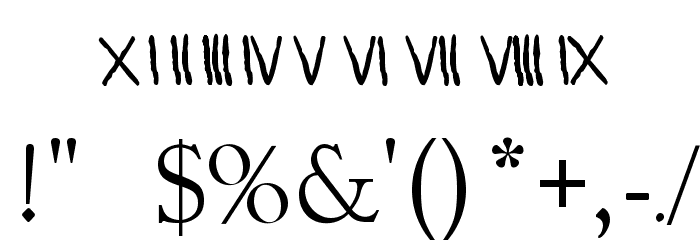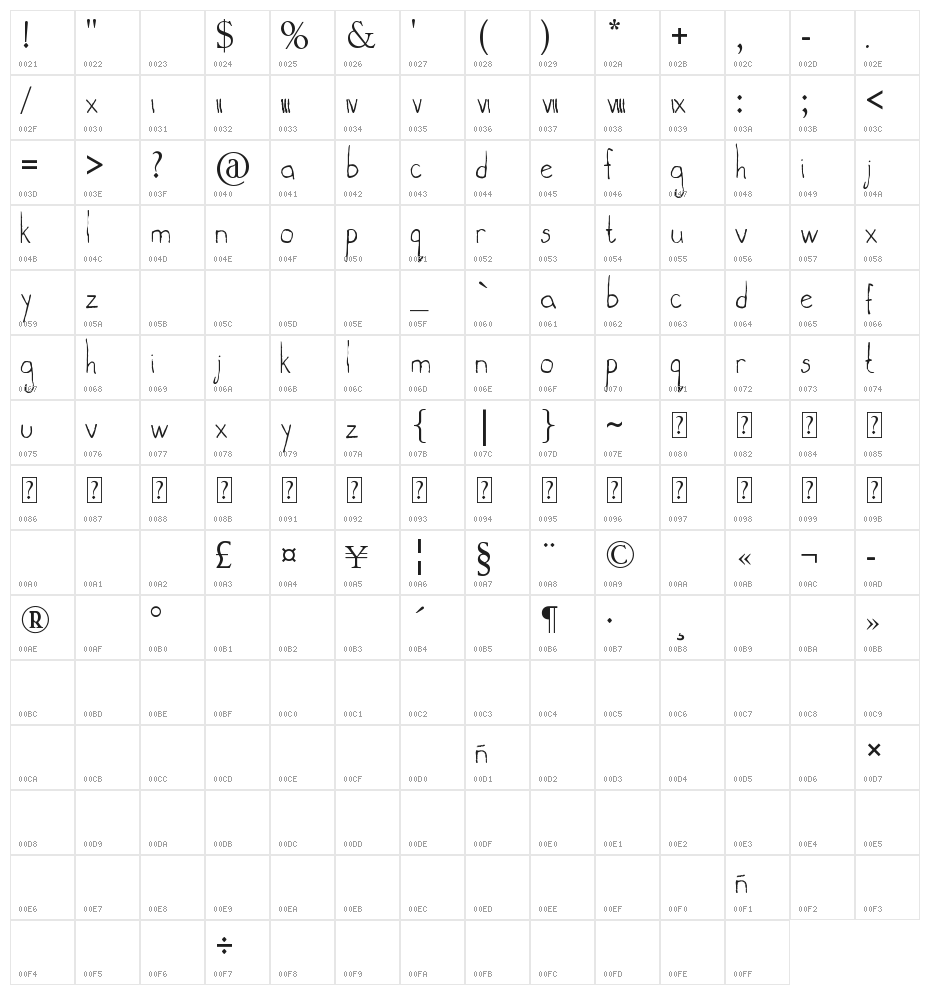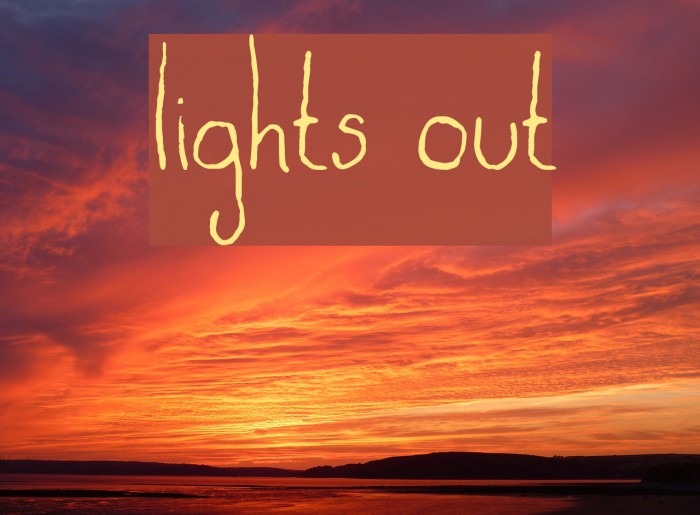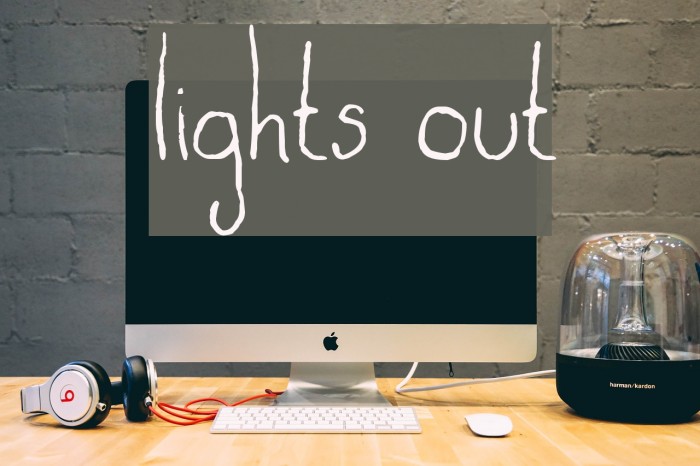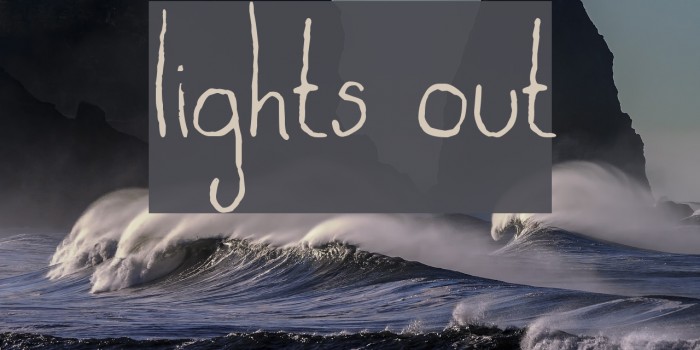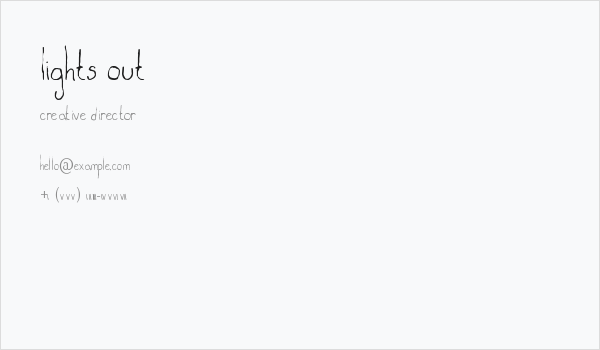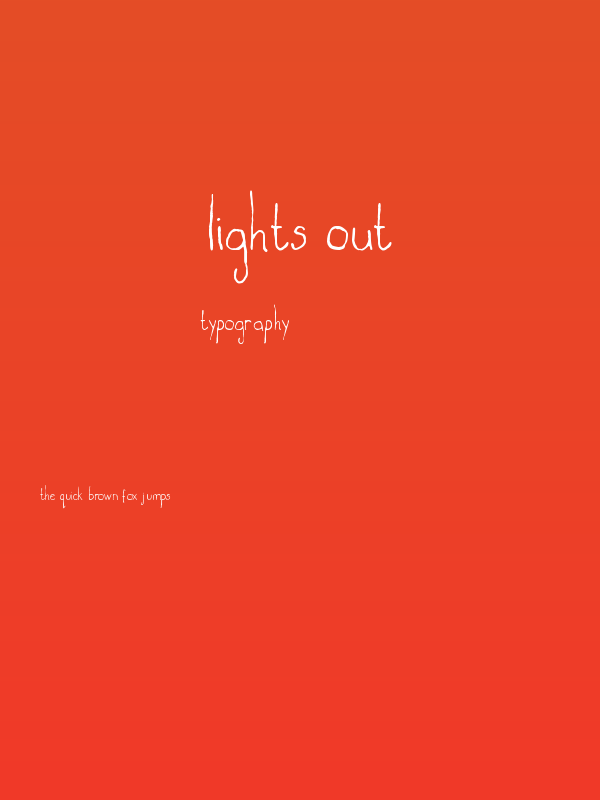
lights out Font
lights out Description
This font features a unique, hand-drawn style with irregular, slightly wavy lines that give it a whimsical and artistic appearance. The characters are tall and slender, with varying stroke thickness that adds a dynamic and organic feel. The lowercase letters have a playful, almost childlike quality, while the uppercase letters maintain a more structured form. The numerals are distinct, with a quirky charm that matches the overall aesthetic. Special characters are creatively designed, enhancing the font's artistic appeal. This font is perfect for projects that require a touch of creativity and individuality.
| Overall Style | Artistic, Whimsical |
| Use Case | Logos, Invitations, Creative Projects |
| Proposed Projects | Ideal for artistic projects, children's books, creative branding, and unique invitations. |